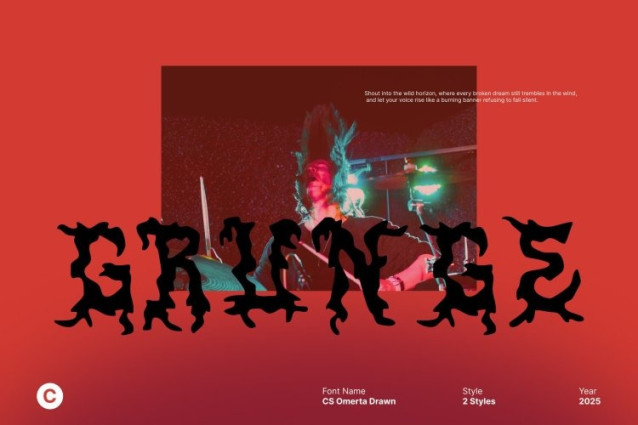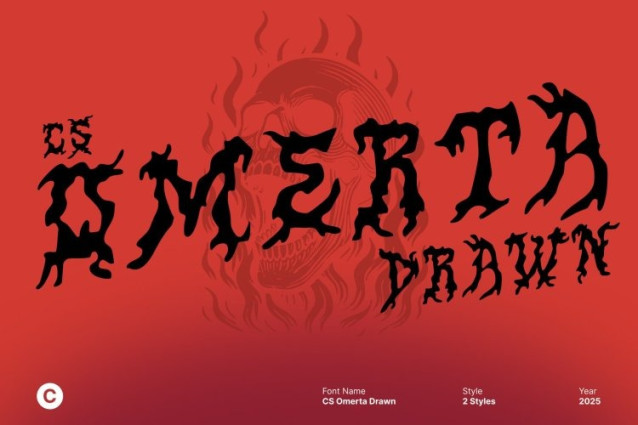
CS Omerta Drawn Font
CS Omerta Drawn Font – Raw and aggressive, this black metal display font features jagged spikes and chaotic strokes that radiate darkness and extreme energy. Its distorted shapes feel untamed and rebellious, perfectly capturing the harsh visual language of extreme music and underground culture. Every character delivers a powerful, uncompromising presence that demands attention.
Drawn Effect for Softened yet Distorted Character
The drawn effect introduces a handcrafted texture that slightly softens the sharp brutality of the letterforms without removing their distorted edge. This balance creates a unique contrast organic and raw, yet still chaotic and aggressive. The result is a font that feels more artistic and expressive while retaining its dark, extreme identity.
Perfect for Band Logos, Posters, and Edgy Projects
Ideal for metal band logos, album covers, concert posters, merchandise, and alternative branding, this font thrives in bold, rebellious designs. Its intense personality ensures strong visual impact, especially in projects that embrace darkness, distortion, and raw emotion.
Distorted, Artistic, and Brutally Expressive
By combining extreme black metal aesthetics with a handcrafted drawn texture, this font delivers a powerful typographic voice. It’s the perfect choice for designers seeking a font that embodies chaos, intensity, and the true spirit of extreme music artistic, distorted, and unapologetically dark.